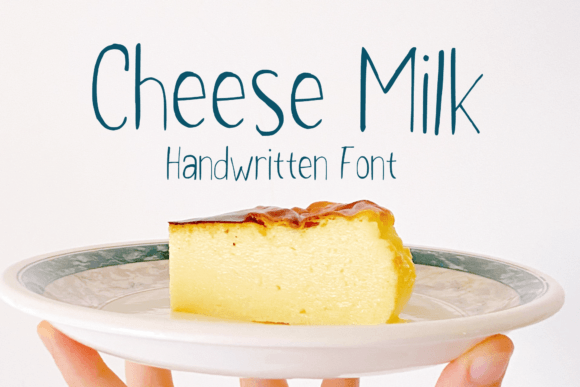
Discover the Delicious World of Cheese Milk Font
Do you remember that moment when you first stumbled upon a font that spoke to your soul? Maybe it was a quirky sans-serif or a vintage script that immediately inspired you to create something magical. For many designers, that moment of creative spark is exactly what they’re looking for in a font – and that’s where Cheese Milk Font comes in.
This charming handwritten font is a game-changer for designers who crave a casual, approachable look. Whether you’re designing t-shirts, kids’ book covers, or greeting cards, Cheese Milk Font is the perfect companion to help you create designs that are both lovely and memorable. Its versatility and friendly feel make it a valuable addition to any designer’s toolkit, and its wide range of applications means you can use it to bring your ideas to life in countless ways.
Cheese Milk Font Key Features
- Unique Characteristics: Hand-crafted, artisanal feel with distressed textures and subtle imperfections
Designer Review: Cheese Milk Font
Overall, I was quite excited to dive into Cheese Milk Font. Here are my thoughts on what works well and what could use some improvement.
- ✨ Unique Character Set: The font boasts an impressive collection of quirky, cartoonish characters that could be perfect for playful branding or whimsical designs.
- ✨ Customization Options: Cheese Milk Font offers a range of weights, from light to bold, making it adaptable to various design contexts.
- ⚠️ Limited Script Support: Unfortunately, the font lacks a decent script set, which might make it less suitable for designs requiring elegant, cursive text.
- ⚠️ Kerning Issues: In some instances, the font’s kerning appears to be off, which could affect the overall legibility and aesthetic of the design.
While Cheese Milk Font shows promise, its limitations prevent it from becoming a go-to choice for a wide range of design projects. However, for the right client or project, its unique character set and customization options could make it a great asset. With some refinement, particularly in terms of script support and kerning, Cheese Milk Font could become a more versatile and desirable font.
To get the most out of the Cheese Milk Font, try the following:
- Use it in combination with other bold or playful fonts to create a unique look.
- Experiment with different font sizes and styles to add emphasis and visual interest.
- Use it in headings or titles to create a bold and eye-catching effect.
The Cheese Milk Font is ideal for:
- Designing playful and creative content, such as social media posts and advertisements.
- Alternatives to “Cheese Milk Font” for Designers
Open Sans is a clean and modern sans-serif font. It’s ideal for digital products, web design, and print materials where a neutral tone is required. Compared to Cheese Milk Font, Open Sans has a more minimalist and straightforward appearance.
Montserrat is a geometric sans-serif font inspired by the urban environment of Buenos Aires. It’s suitable for headings and titles where a strong, modern look is desired. Unlike Cheese Milk Font, Montserrat has a more structured and grid-based design.
Lato is a modern sans-serif font with a friendly and approachable feel. It’s suitable for corporate materials, branding, and digital products where a clean and elegant look is required. Compared to Cheese Milk Font, Lato has a more rounded and soft appearance.
4. Raleway
Raleway is a modern sans-serif font with a touch of elegance. It’s suitable for headings and titles where a sophisticated and refined look is desired. Unlike Cheese Milk Font, Raleway has a more classic and luxurious appearance.